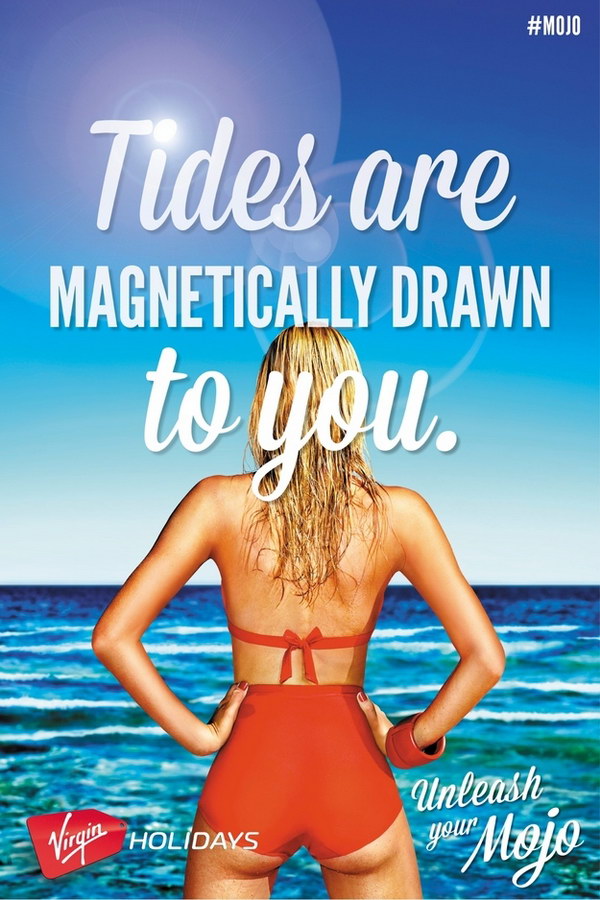
Unleash Your Mojo Font
AdventureUnleash Your Mojo ad campaign by Virgin Holidays is a marketing campaign designed to inspire and motivate individuals to take a vacation and experience new cultures and adventures.
It is probably Mission Script, designed by James T. Edmondson, that is used in the poster for the campaign. It is a condensed script typeface inspired by Mission District signage from San Francisco. You can view and download the font here.